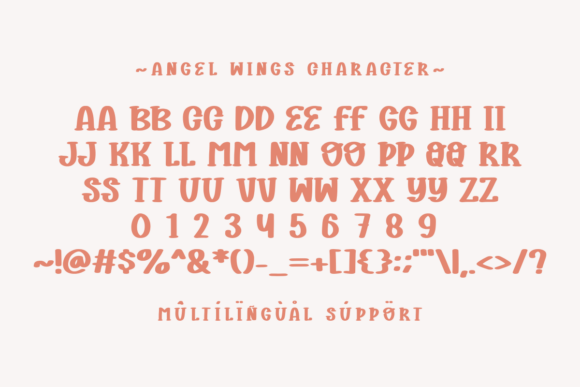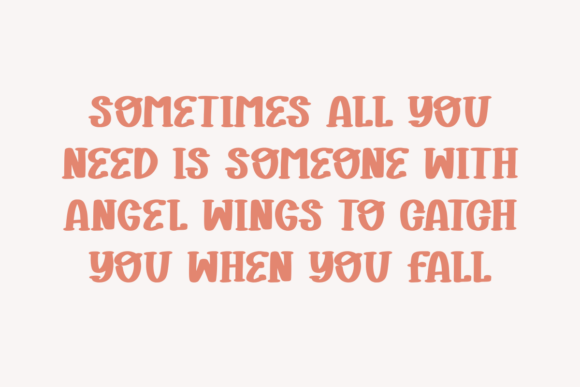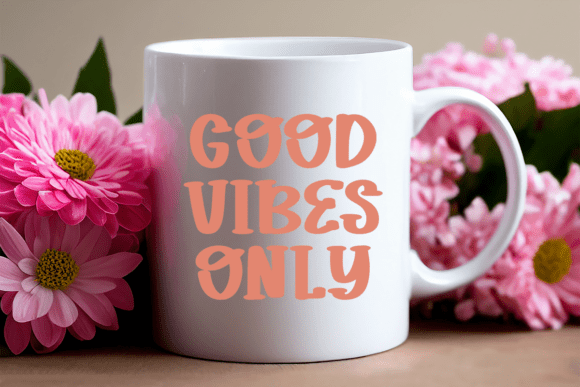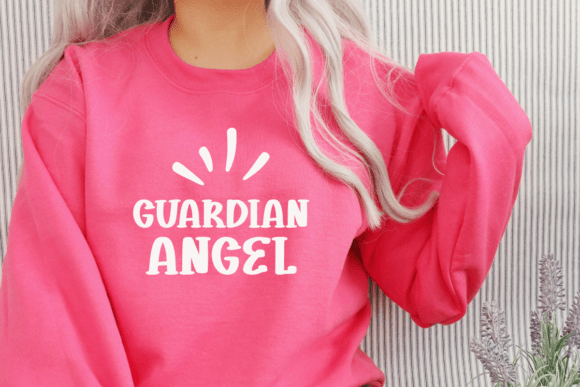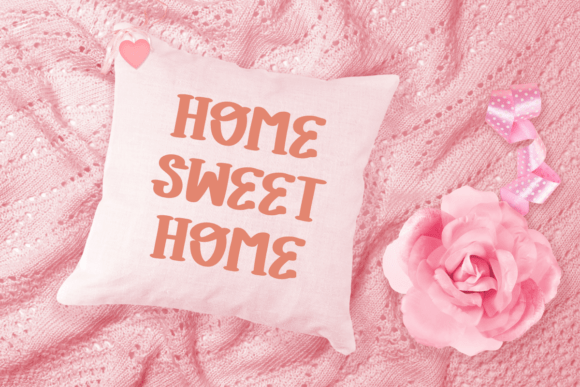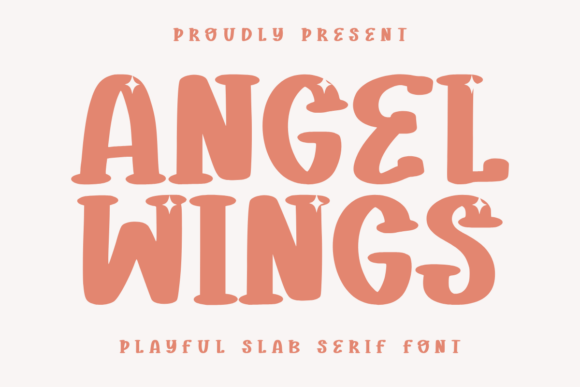
The Magic of Angel Wings Font: Elevate Your Holiday Designs
It’s that time of the year again – the season for festive designs, holiday cheer, and a dash of creativity. I still remember working on a Christmas card project last year, struggling to find the perfect font that would capture the essence of the holiday spirit. My client wanted something fun, playful, and eye-catching, but I was stuck in a design rut. That’s when I stumbled upon the Angel Wings Font – a game-changer for any designer, crafter, or creative hobbyist looking to add a touch of magic to their work.
A Festive and Fun Slab Serif Font
The Angel Wings Font is a festive and fun slab serif font, perfect for adding a touch of holiday cheer to your designs. With its playful curves and bold lines, this font is ideal for creating cards, invitations, and other holiday-themed graphics. Whether you’re a designer, crafter, or creative hobbyist, this font is sure to become your go-to for all your holiday design needs.
• ✨ Festive and Fun: The Angel Wings Font is perfect for holiday designs, with a playful and cheerful vibe that’s sure to capture the essence of the season.
• ✅ Easy to Read: The font’s bold lines and clear curves make it easy to read, even at smaller sizes.
• 🎉 Versatile: From cards and invitations to social media graphics and more, this font can be used for a wide range of design projects.
While the Angel Wings Font is a fantastic addition to any design project, there are a few things to keep in mind:
• 🤔 Limited Multilingual Support: As with many festive fonts, the Angel Wings Font may not support a wide range of languages. Be sure to check the font’s specifications before using it for a multilingual project.
• ⚠️ Overuse: While the font is festive and fun, it’s easy to overuse it. Be mindful of your design balance and make sure the font isn’t overwhelming your other design elements.
The Backstory Behind Angel Wings Font
The Angel Wings Font was created by a talented designer who wanted to capture the magic of the holiday season. Inspired by the whimsical and playful nature of holiday decorations, the designer crafted a font that’s both fun and elegant. While the designer’s story is fictional, the font’s charm and character are very real.
Q: What is the Angel Wings Font?
A: The Angel Wings Font is a festive and fun slab serif font, perfect for adding a touch of holiday cheer to your designs.